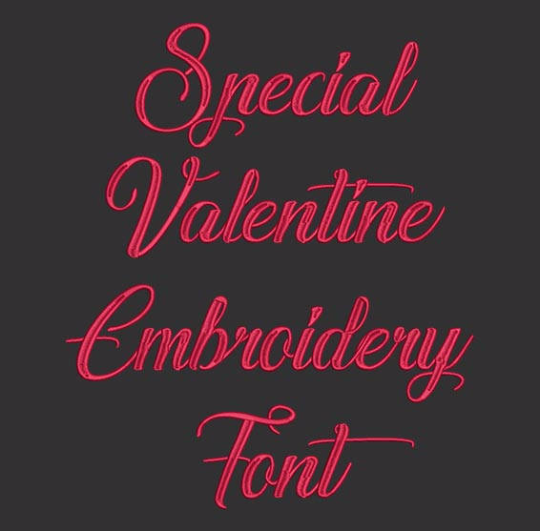
Valentine font
This font stitches out very nice!
Title: Special Valentine Machine Embroidery Font
This Special Valentine font is perfect for personalizing clothes, bags, towels and linens!
This font stitches out very nice!
Beautiful Font